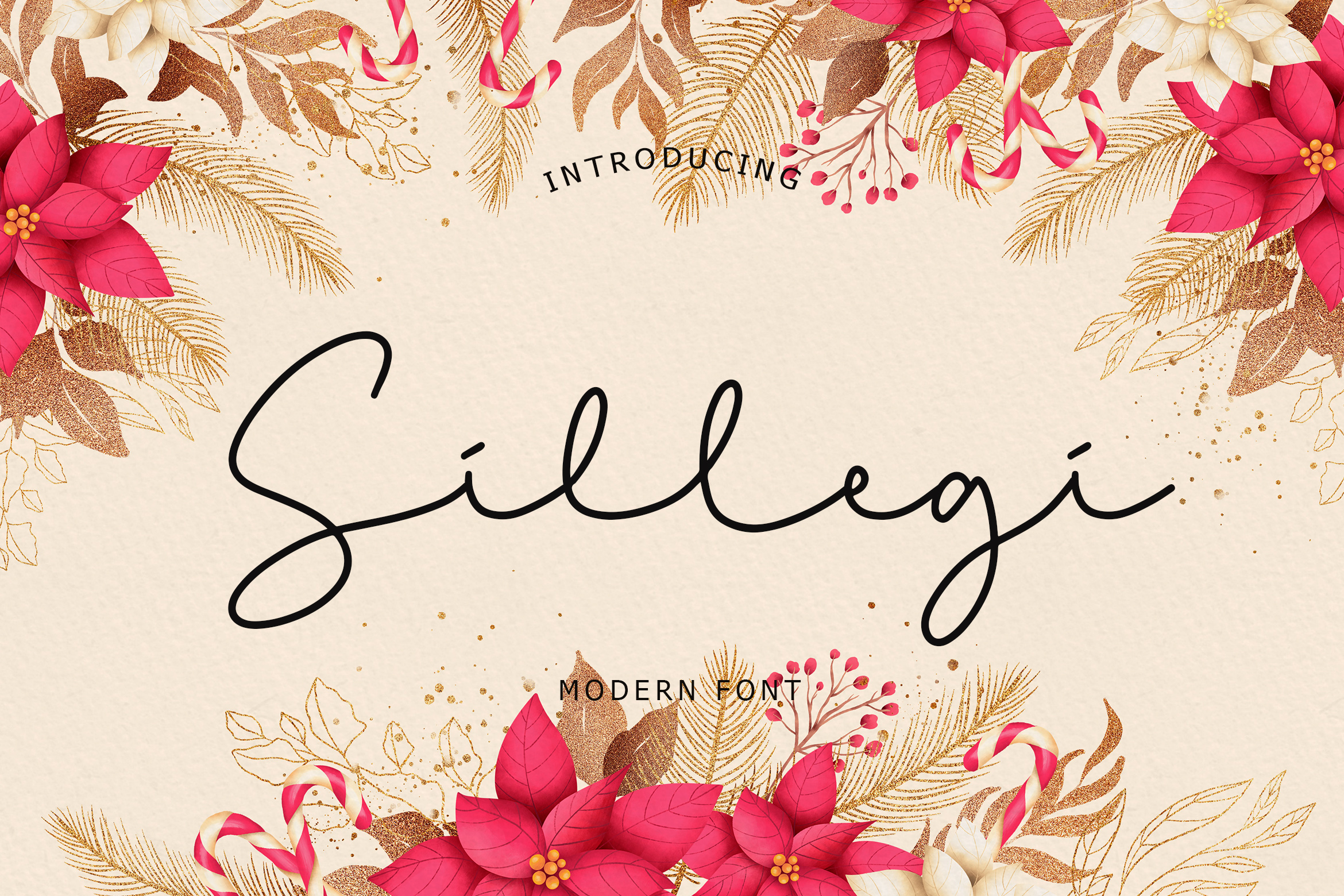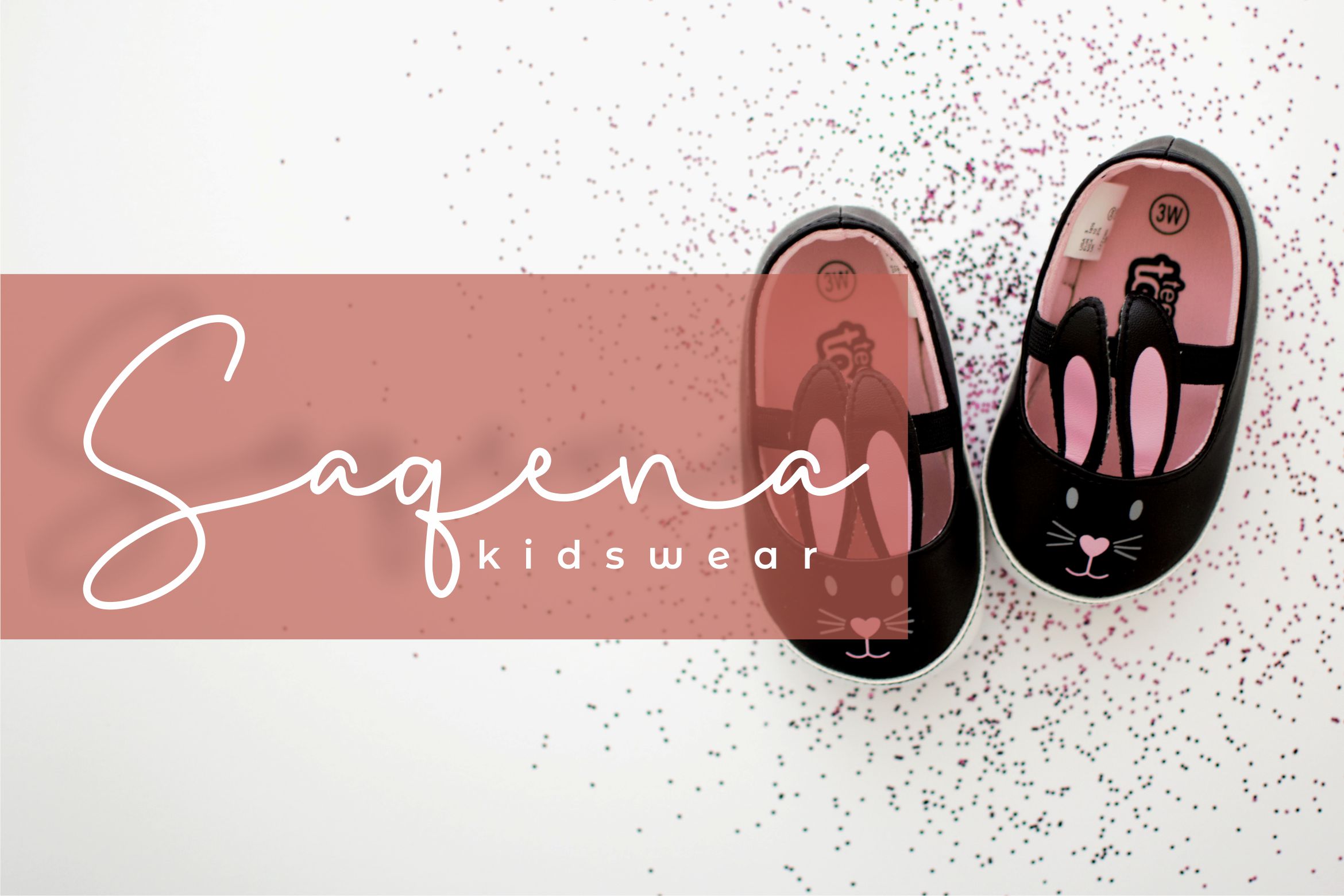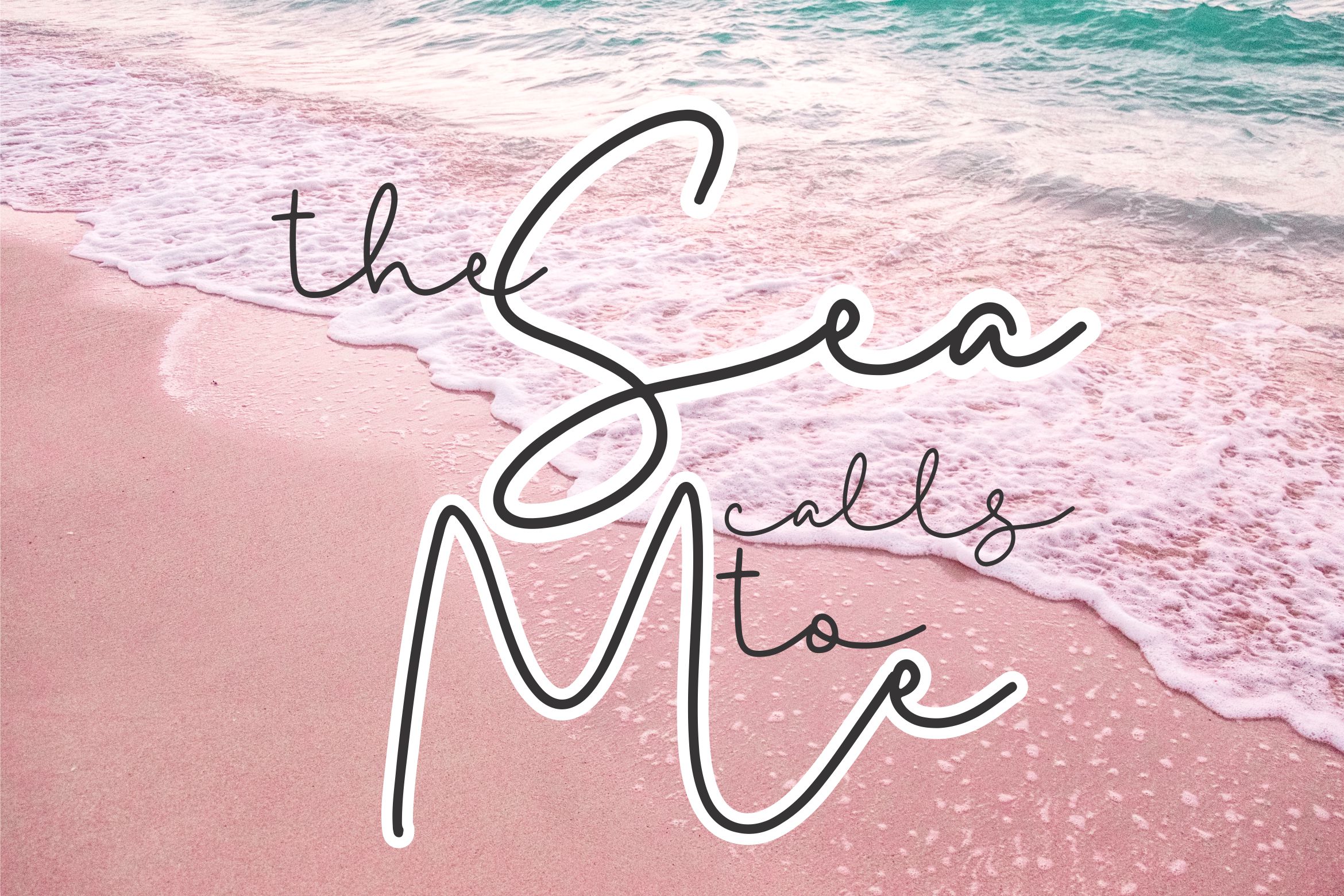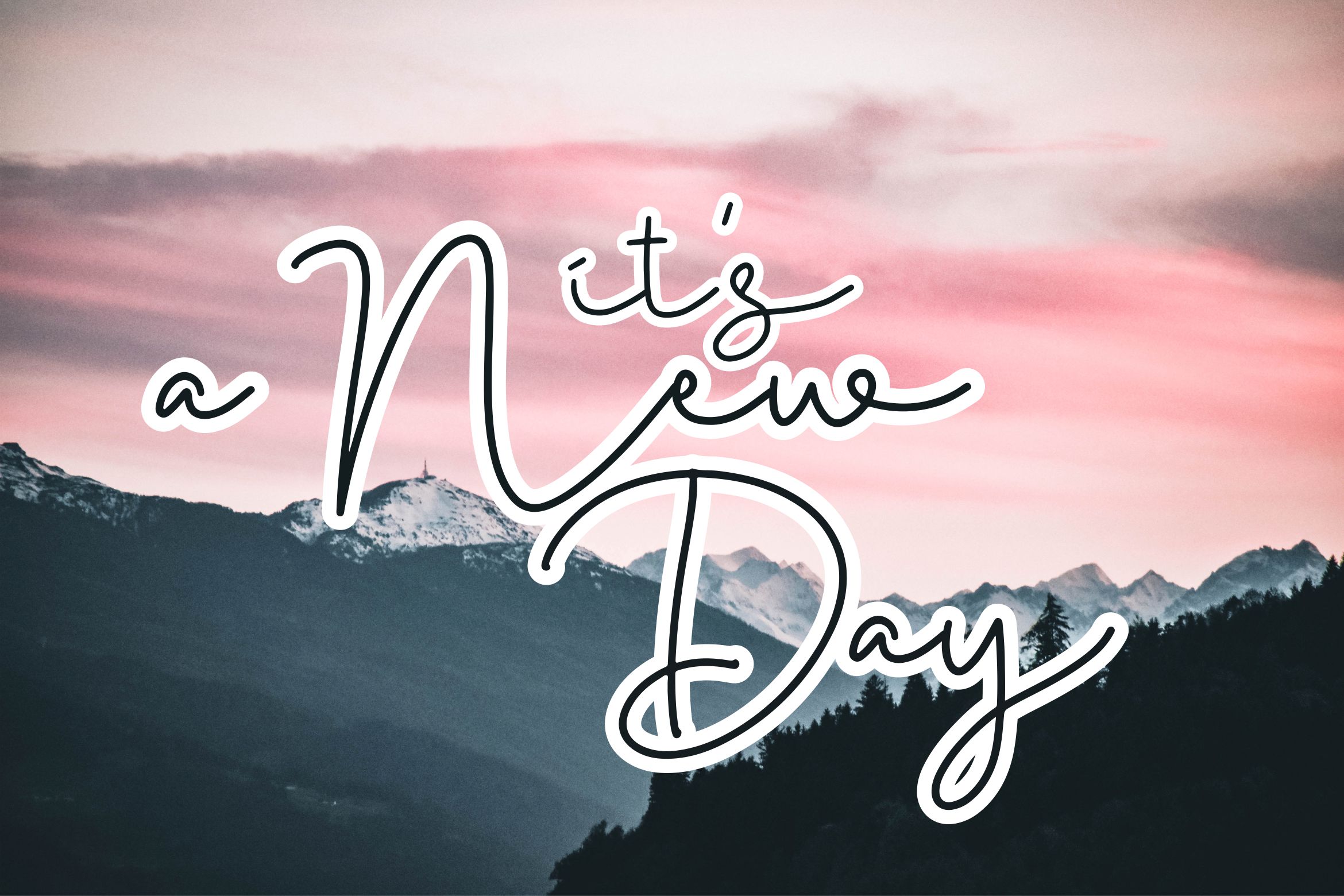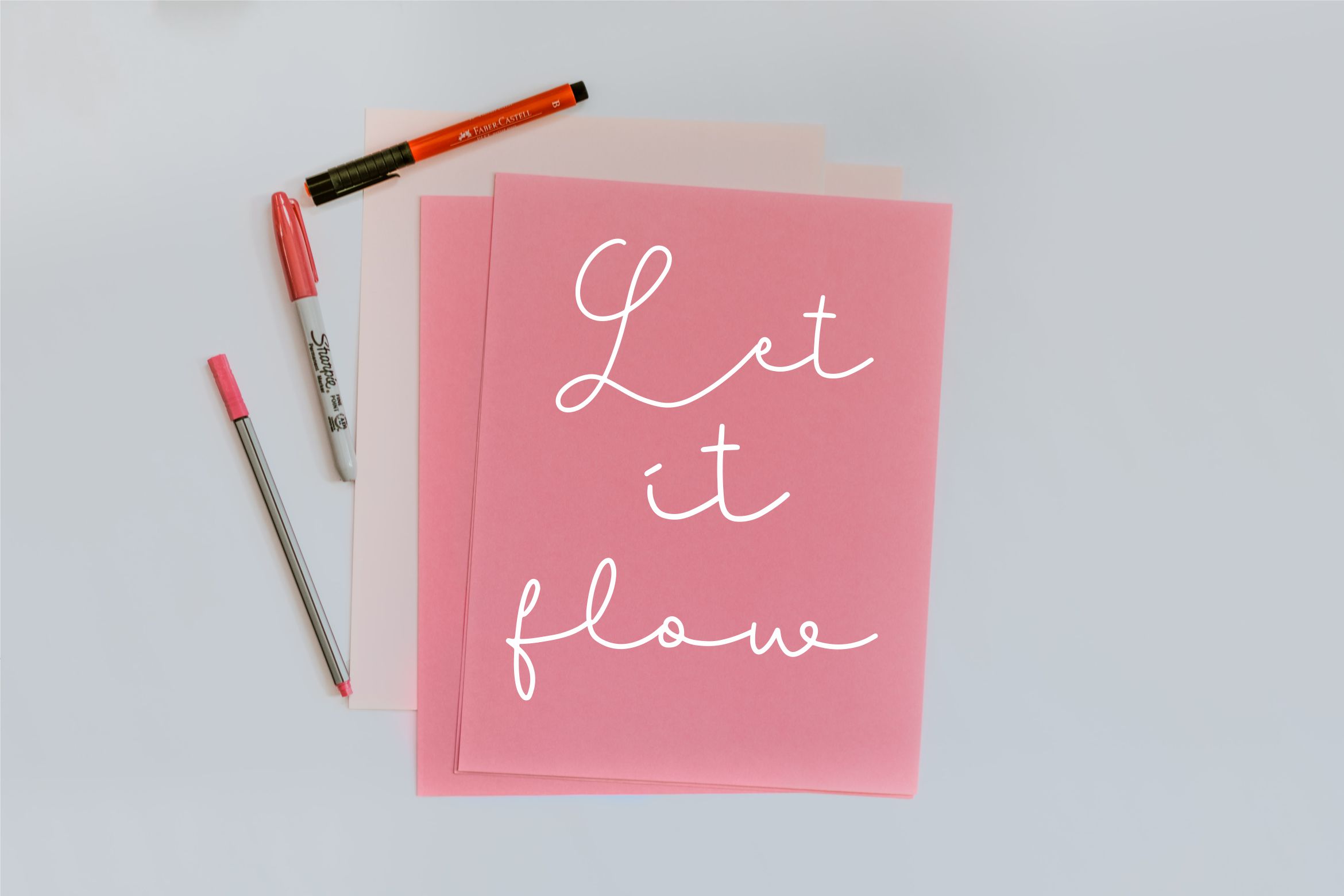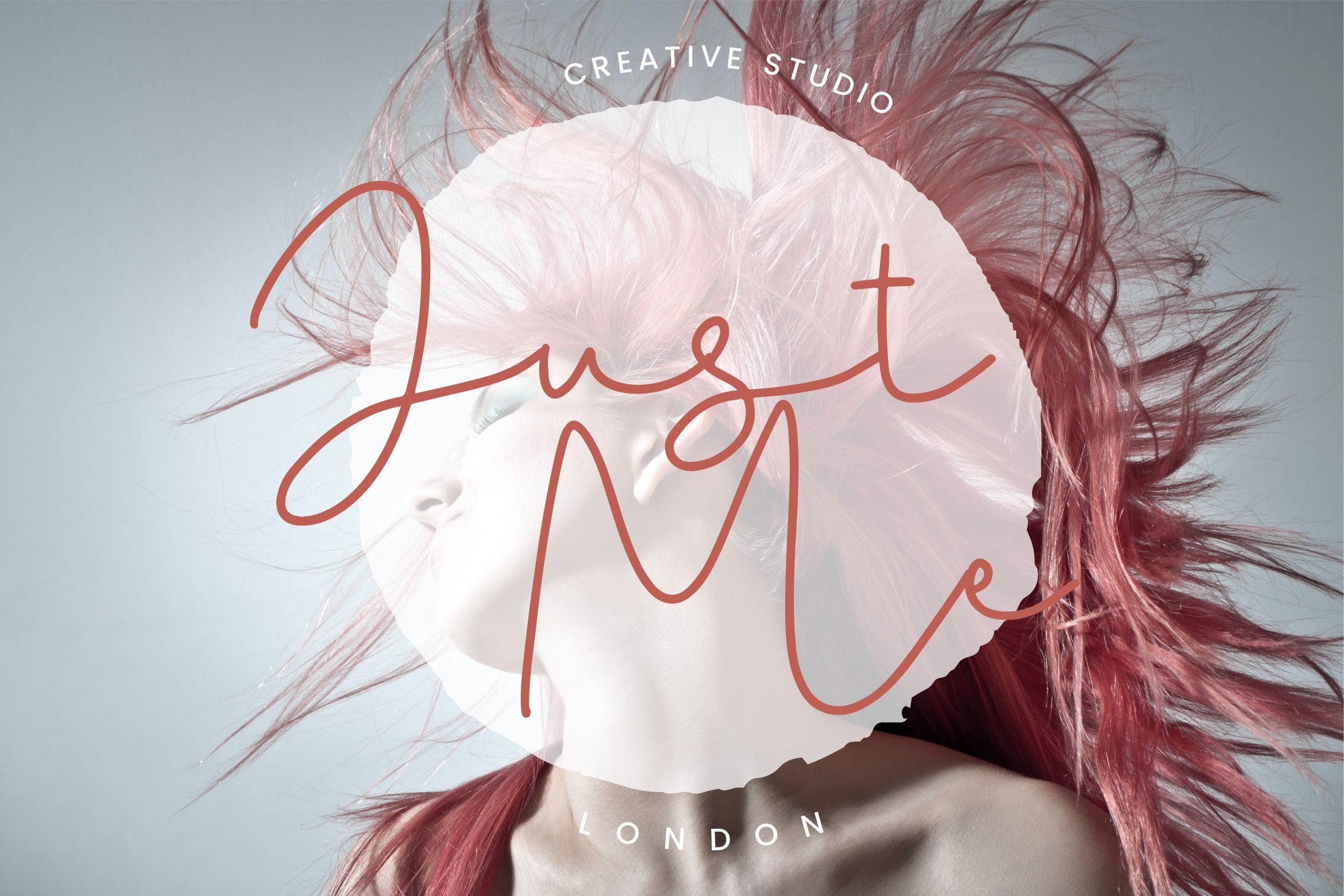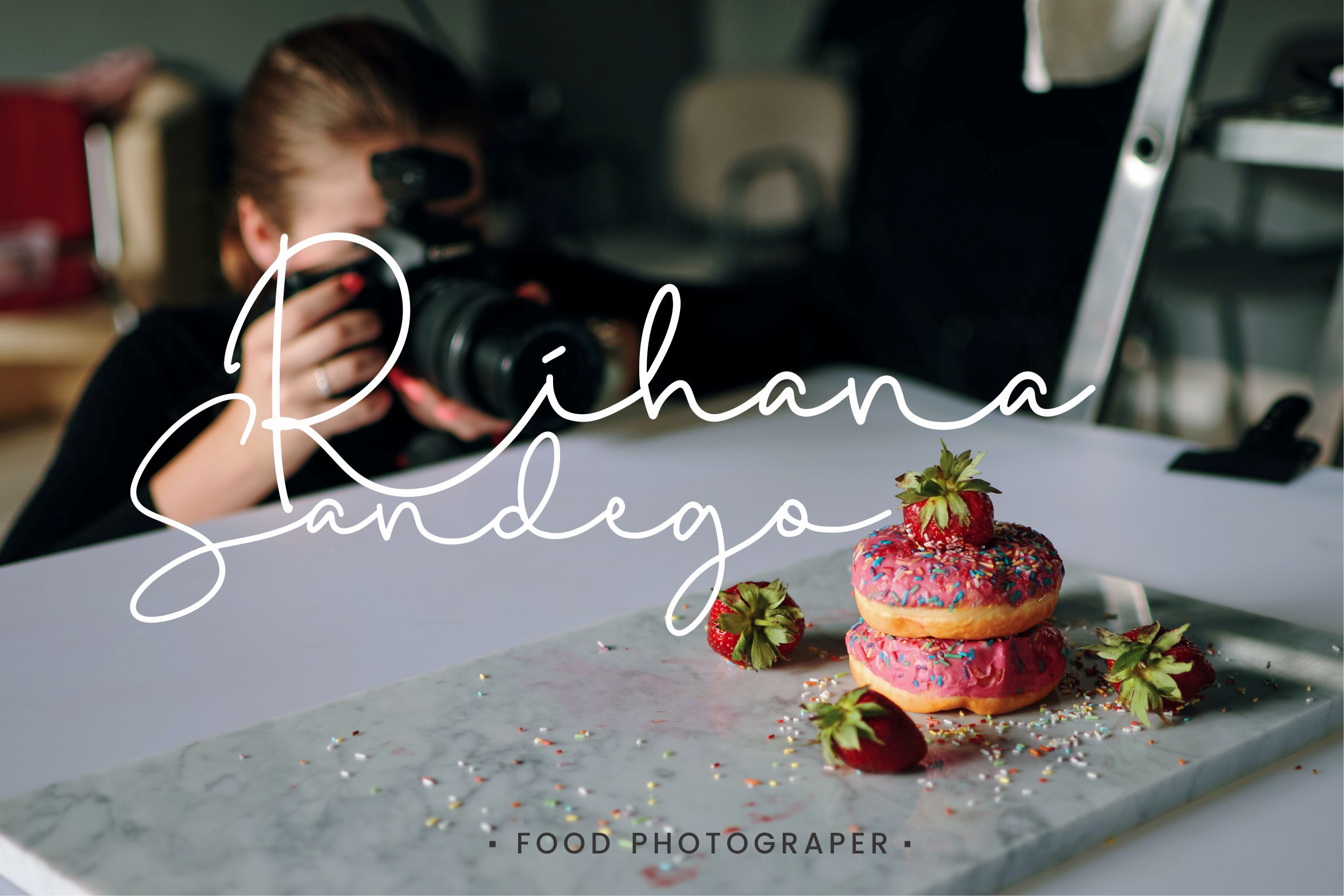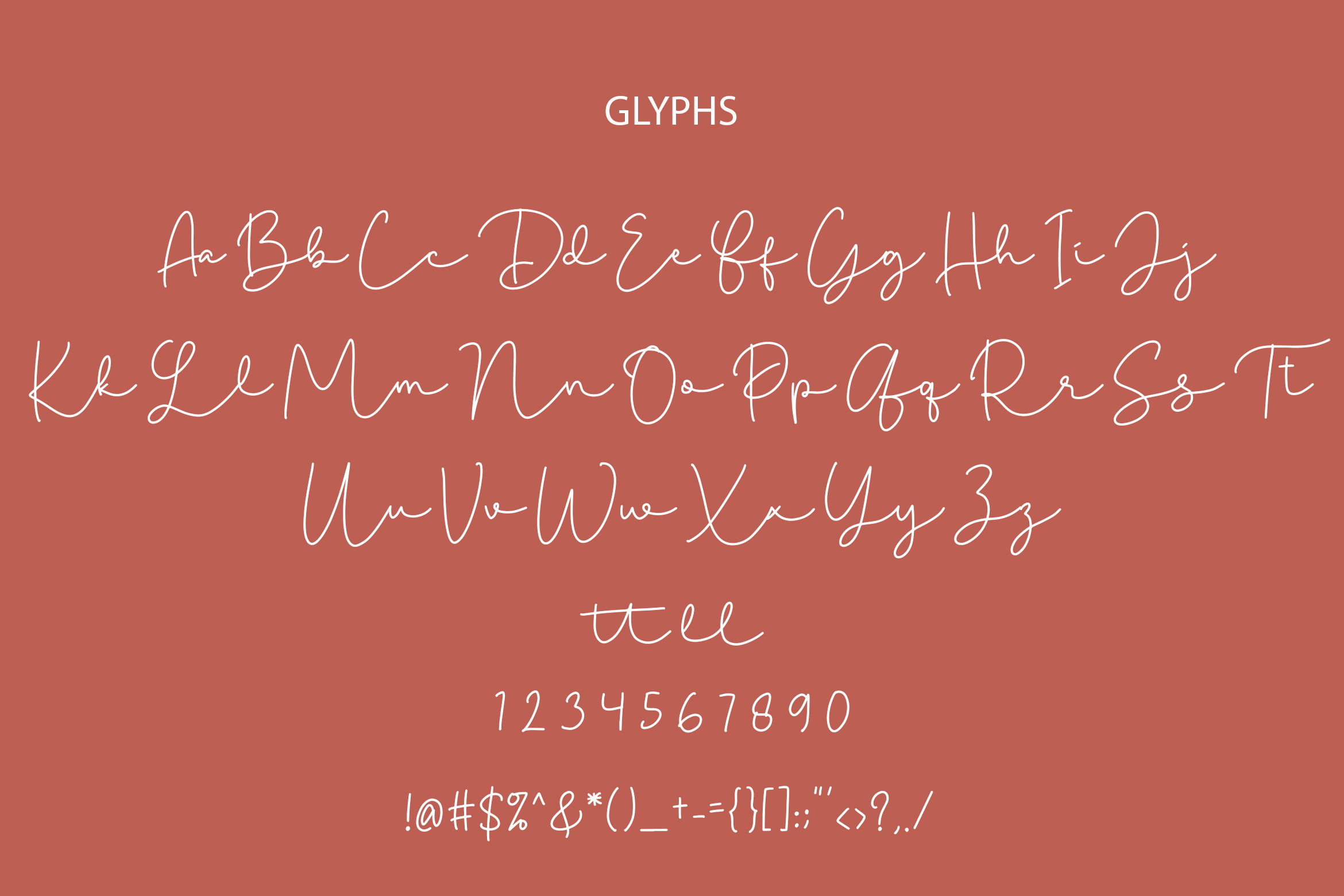
Sillegi is an modern calligraphy font with monoline style. Fall in love with its elegantly playful nature!
Sillegi is perfect for branding projects, logo, wedding designs, social media posts, advertisements, product packaging, product designs, label, photography, watermark, invitation, stationery and any projects.